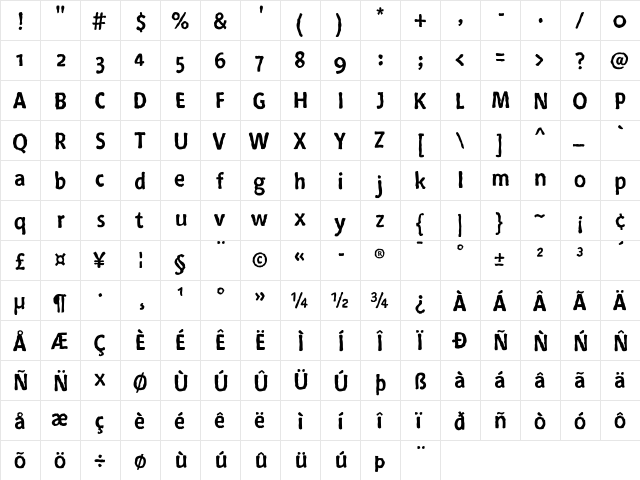
Granola Medium
Design Context for Granola Typeface
Granola is a composed and adaptable typeface that performs quietly and consistently across a wide range of design contexts.
Pro Tip: Use Granola in both headline and body roles to test its range before committing to a single application.